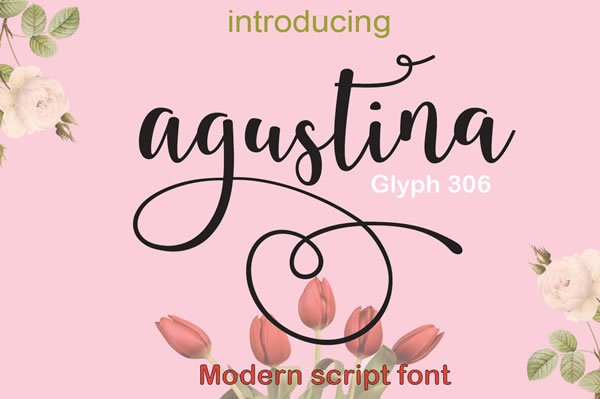
The Art of Elegant Design: Introducing Agustina Font
As a designer, there’s nothing quite like the thrill of bringing a concept to life. It’s the moment when all the pieces come together, and you step back to admire the beauty you’ve created. For many of us, it’s the perfect invitation that sets our hearts racing – the delicate script, the flowing curves, and the overall sense of sophistication. That’s exactly what the Agustina Font is designed to evoke.
Agustina Font is a stunning calligraphy style font that exudes elegance and refinement. Its dancing baseline and beautiful touch make it a perfect choice for classy designs, such as wedding invitations, greeting cards, and more. With its range of features, including initial alternates, terminal alternates, and standard ligatures, the Agustina Font is a valuable addition to any designer’s toolkit. Whether you’re a seasoned pro or just starting out, this font is sure to inspire your creativity and elevate your designs to the next level.
Agustina Font Key Features
- Font Family: Agustina
- Unique Characteristics: Agustina Font features a unique, elegant script design with intricate details and flourishes, making it ideal for formal and decorative purposes.
- Language Support: Agustina Font supports multiple languages, including Latin-based scripts, Cyrillic, and Greek, allowing for versatile usage across different regions and languages.
Agustina Font Review
Overall, I think Agustina is a beautiful, elegant font with a lot of character. Here are some things that work well: ✨
- Its unique, handwritten feel adds a touch of personality to any design
- The font is highly legible, even at smaller sizes
- It’s a great choice for designs that need to convey a sense of sophistication and refinement
- The font may not be the best choice for designs that require a lot of bold, attention-grabbing text
- Some characters, such as the lowercase ‘a’ and ‘e’, can be a bit tricky to read at certain angles
- The font may not be fully compatible with all operating systems or devices
Overall, I would say that Agustina is a solid choice for designers who want to add a touch of elegance and sophistication to their work. While it may not be the best choice for every project, it’s definitely worth considering for designs that require a high level of refinement and polish.
Agustina Font Practical Application Guide
The Agustina Font is ideal for:
– Creating elegant and sophisticated designs
– Adding a touch of sophistication to formal documents
– Designing luxury branding materials, such as business cards or brochures
– Creating artistic and creative content, such as illustrations or graphics
Tips for Getting the Most Out of Agustina Font
To get the most out of Agustina Font, try:
– Experimenting with different font sizes and styles to create visual interest
– Combining Agustina Font with other fonts to create a unique design
– Using Agustina Font in conjunction with high-quality images or graphics to add depth and
Alternatives to Agustina Font for Designers
Montserrat is a modern sans-serif font that is highly legible and versatile. It is ideal for use in digital interfaces, signage, and advertising. Montserrat is a great alternative to Agustina Font for designers who want a clean and minimalist look.
Similarity to Agustina Font: Montserrat has a similar geometric feel to Agustina Font, but with a more modern and sleek aesthetic. Difference: Montserrat is more condensed and has a higher x-height, making it more suitable for digital interfaces.
Inter is a highly legible sans-serif font that is designed for digital use. It is ideal for use in web design, mobile apps, and digital signage. Inter is a great alternative to Agustina Font for designers who want a clean and modern look.
What is the character set for Agustina Font?
Agustina Font includes a comprehensive character set that supports most Latin-based languages, including English, Spanish, French, German, Italian, and many others. The font also includes a range of punctuation and symbol characters, including currency symbols, mathematical operators, and emoji.